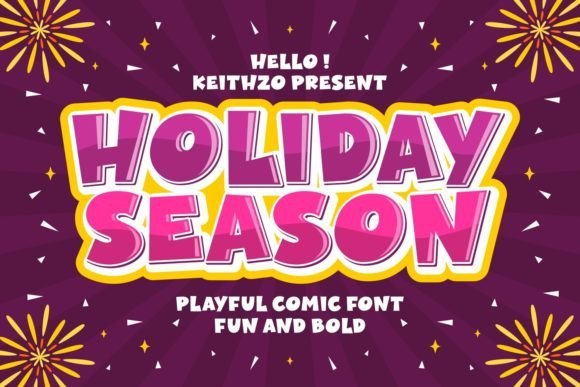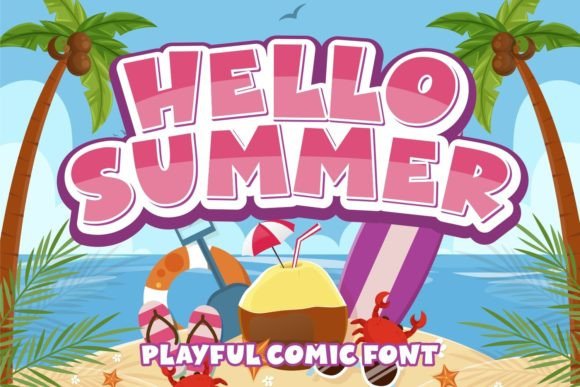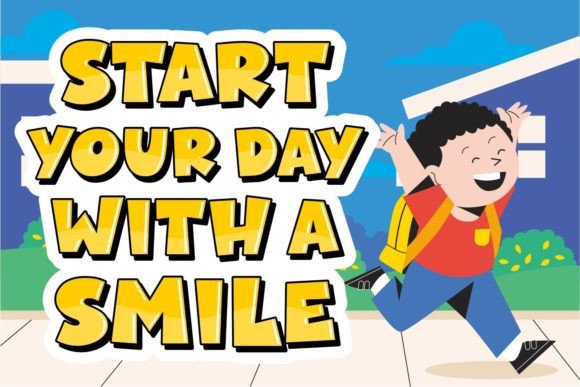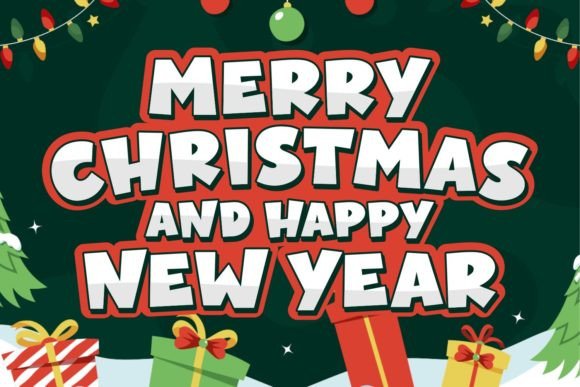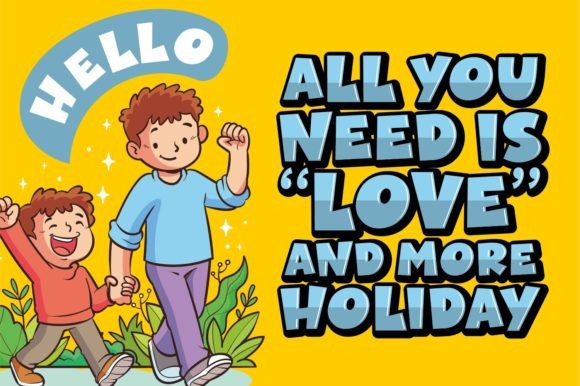
Get Ready to Deck the Halls with Style: Holiday Season Font
It’s that time of the year when creativity knows no bounds, and your imagination runs wild. You’re brainstorming ideas for your holiday campaign, and the perfect font is all that’s missing to bring your vision to life. Imagine a font that’s playful, whimsical, and instantly festive – a true showstopper that elevates your designs from ordinary to extraordinary.
Meet the Holiday Season Font, a cartoon-style display font designed to make any text shine. With its unique personality and flair, this font is the perfect addition to your holiday projects. Whether you’re designing cards, ads, or social media graphics, the Holiday Season Font is sure to add a touch of magic to your creations. For designers, this font is a valuable asset, offering endless possibilities to create stunning and eye-catching visuals that capture the essence of the holiday season.
Holiday Season Font Key Features
- Unique Characteristics: The Holiday Season Font features intricate, hand-drawn illustrations and ornaments, making it an ideal choice for holiday-themed designs, invitations, and greeting cards.
- Kerning and Ligatures: The font includes advanced kerning and ligature pairs, ensuring smooth text rendering and a professional appearance.
- Customization Options: The font family includes various ornaments and decorations, allowing designers to customize their designs with a range of holiday-themed elements.
Design Review: Holiday Season Font
I recently had the chance to work with the Holiday Season Font, and I must say it’s a unique addition to any design project.
- Playful and festive feel: The font is perfect for creating a lively atmosphere in your designs.
- Customizable: It comes in a range of sizes and styles, making it easy to adapt to different design elements.
- Colorful: The font features a variety of colors that can be easily matched with other design elements.
- Lack of versatility: While the font is great for holiday-themed designs, it may not be suitable for other types of projects.
- Overuse: The font’s playful feel may become overwhelming if used excessively.
Overall, the Holiday Season Font is a fun and festive addition to any design project. While it has some limitations, it’s perfect for creating a lively atmosphere during the holiday season. With some caution and careful planning, it can be a great asset to your design arsenal.
The Holiday Season Font is perfect for:
- Creating festive holiday cards and invitations.
- Designing holiday-themed social media graphics.
- Creating holiday-themed menus and labels.